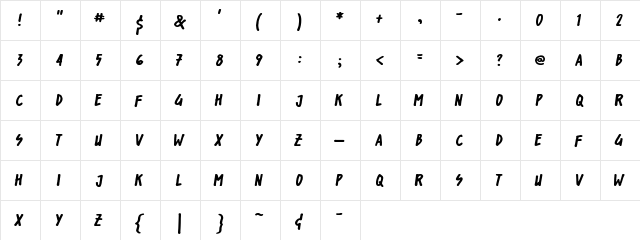
Shorelines Display Regular
| Designer | The Branded Quotes |
Design Context for Shorelines Display Typeface
Shorelines Display brings ornamental detail and strong personality to headlines and identities, where visual impact matters more than quiet functionality.
Font Pairing: Pair with a clean neutral sans-serif for body copy to let Shorelines Display's character lead without overwhelming the composition.
Pro Tip: Use Shorelines Display exclusively at display sizes — it was designed to be seen, not read at length. Let a neutral companion handle body copy.